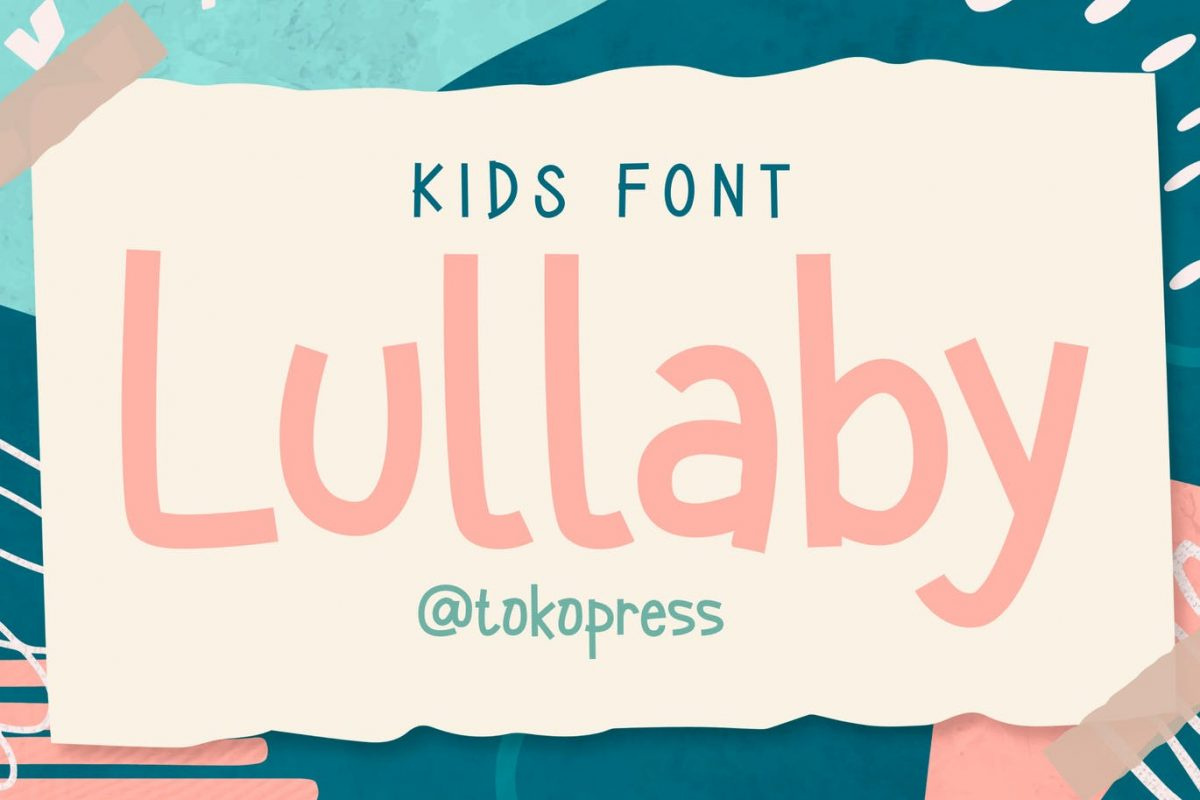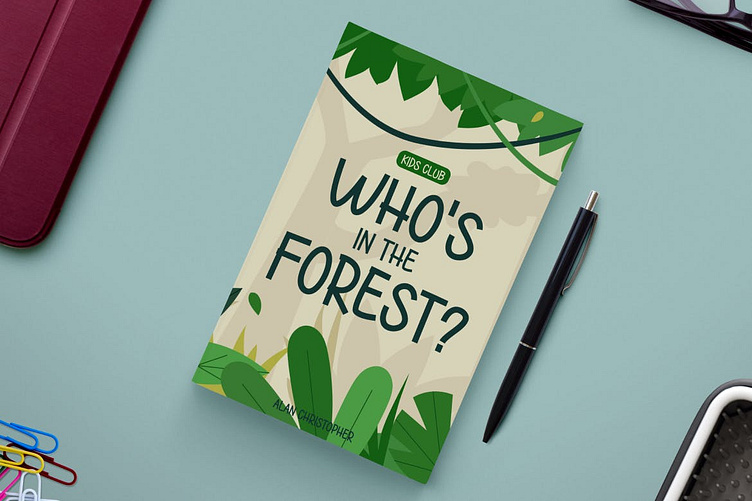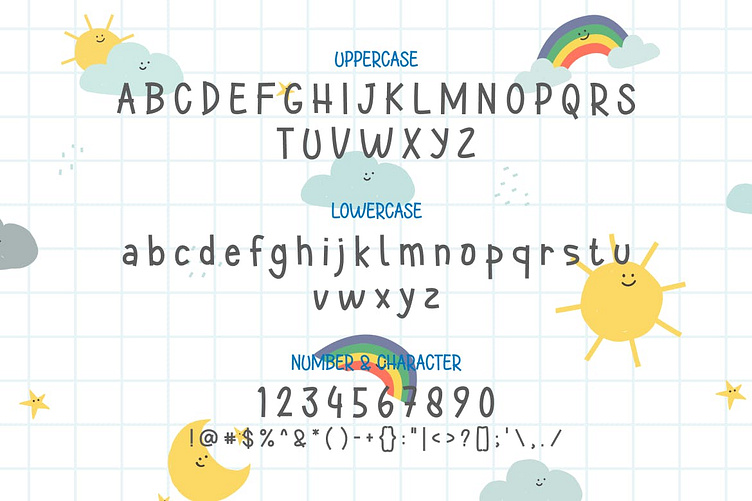
Lullaby – Kids font
Introducing Lullaby, the perfect font to add fun and creativity to any kid’s project. This playful and charming typeface is designed to evoke happiness and joy, capturing the essence of childhood. Lullaby is a versatile font that can be used for various projects such as cartoons, movies, books, and websites.
With its clean and smooth lines, Lullaby is a sans serif font that is easy to read and perfect for young children. Its playful style makes it ideal for any kid’s project, from storybooks to school projects. The font is available in both regular and bold weights, giving you more options to play with.
Lullaby is a great choice for designers who want to create a fun and exciting look for their kid’s project. Its versatility and adaptability make it a perfect fit for various design needs. Whether you’re creating a movie poster or a YouTube thumbnail, Lullaby is the font that can make your project stand out.
Happiness and joy are what children world. Lullaby captures this essence perfectly with its playful and fun design. With this font, you can create a magical and imaginative world for kids, capturing their attention and imagination.